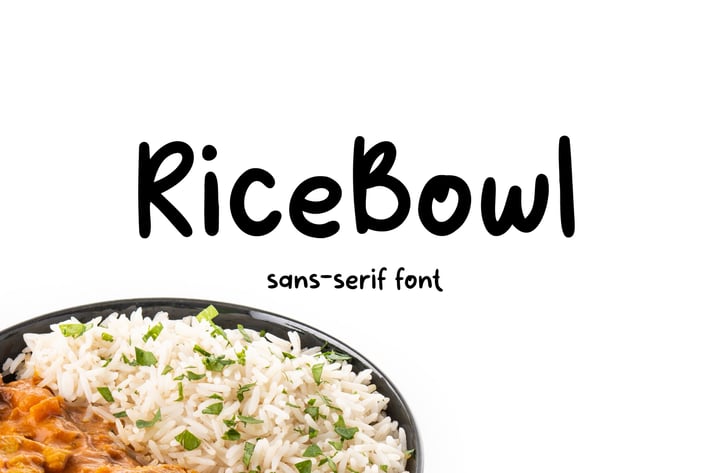
Rice Bowl - Sans Serif Font
RICE BOWL is a unique handwritten font. This font has fun and modern looks.
Rice Bowl can be used in any works such as book menu restaurant, book cover, music cover, children book, poster, advertisement, social media content, logo and many more.